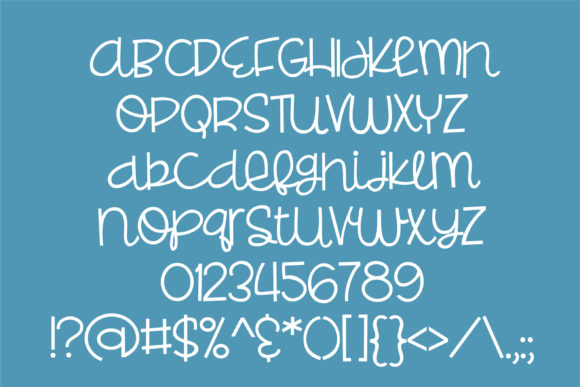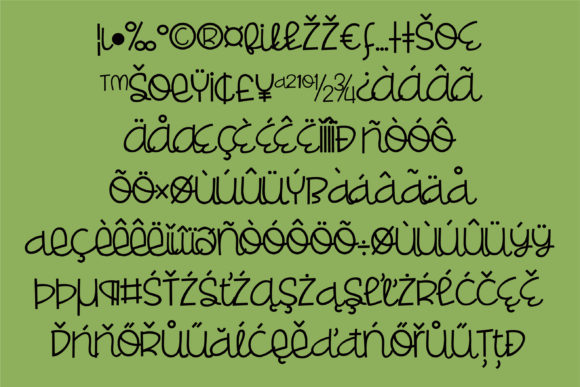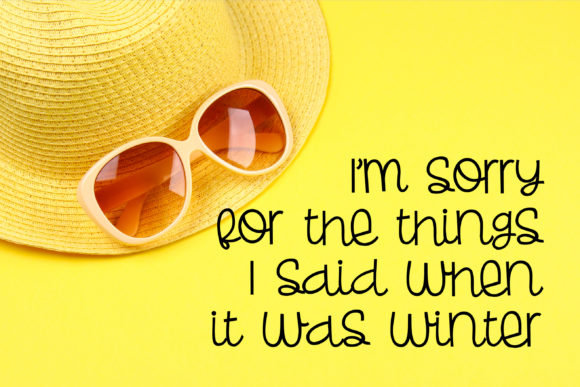
Introduction to Heatscript Font
Heatscript is a summery and fun handwritten font with a charming twist.
It will add a unique charm to any design project .
Why Choose Heatscript Font?
Heatscript Font offers exceptional quality and versatility, making it a valuable addition to your design toolkit. Whether you’re creating for personal projects or commercial use, Heatscript Font delivers professional results.